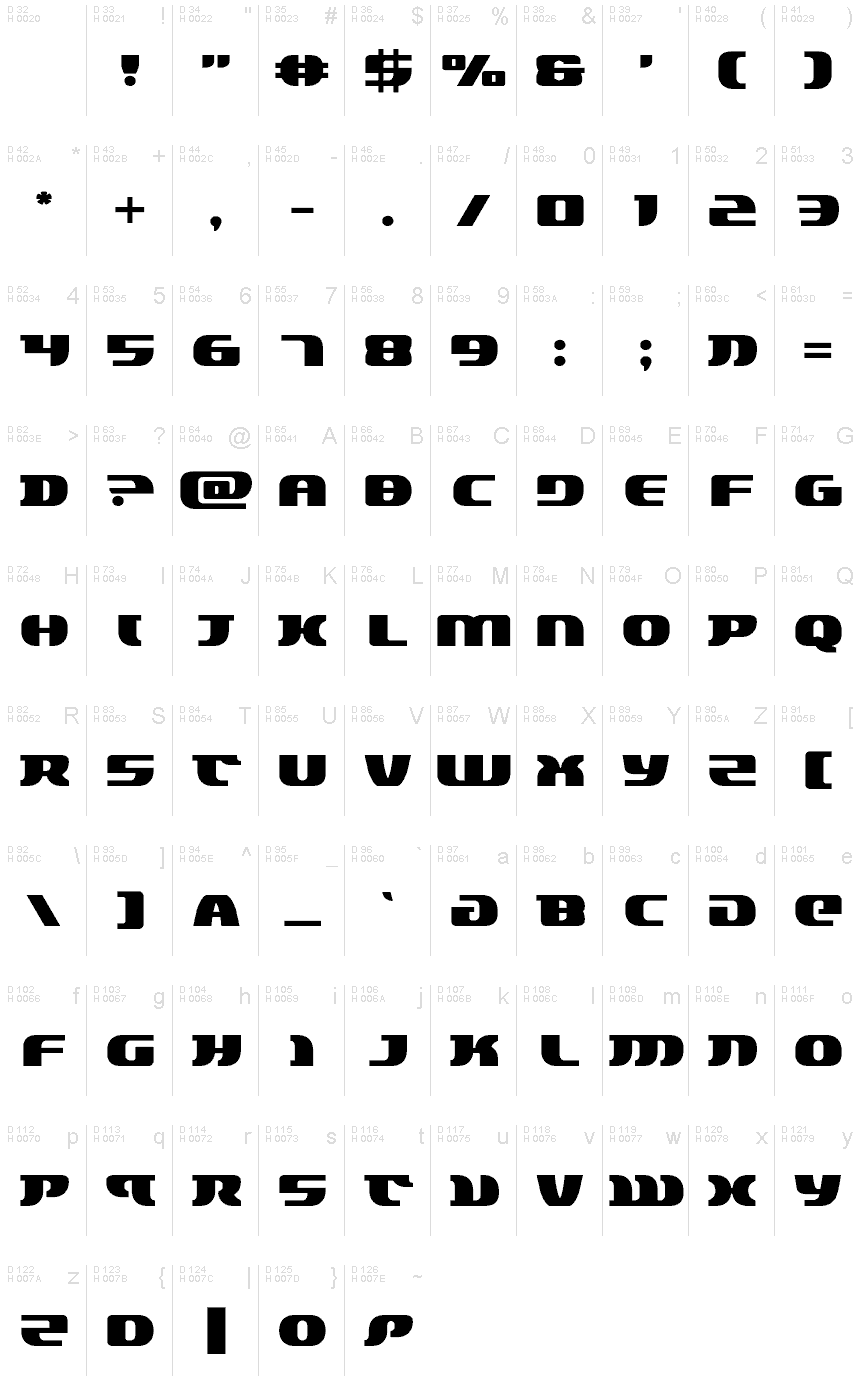
Lord of the Sith
Lord of the Sith, designed by Daniel Zadorozny of Iconian Fonts, is a captivating display font that exudes a futuristic and commanding presence. With its bold, expanded letterforms and sleek, angular aesthetic, this font evokes a sense of power and technological sophistication. The sharp, geometric shapes and distinctive ligatures create an imposing, almost ominous tone, making it a compelling choice for a wide range of design projects.
This font's versatility shines through its ability to command attention in various contexts, from sci-fi themed branding and packaging to cinematic title sequences and digital interfaces. Its expansive width and striking visual impact make it an ideal selection for headings, logos, and other high-impact design elements that require a strong, authoritative presence.